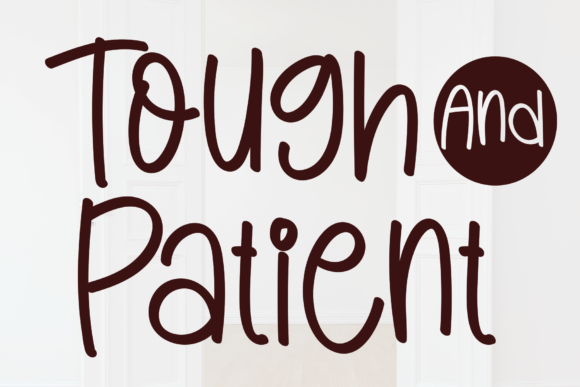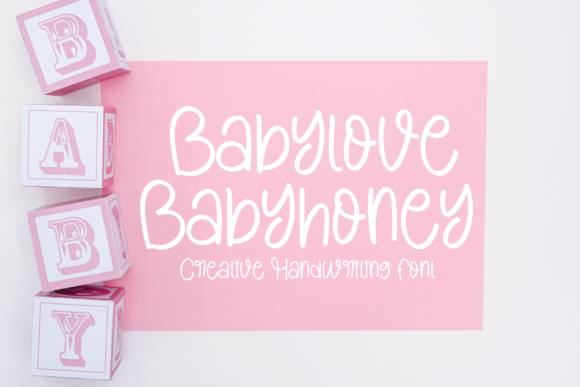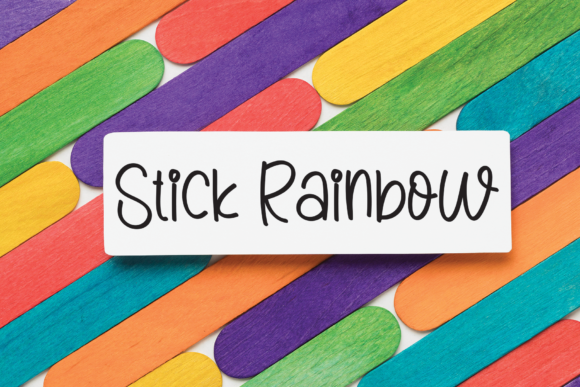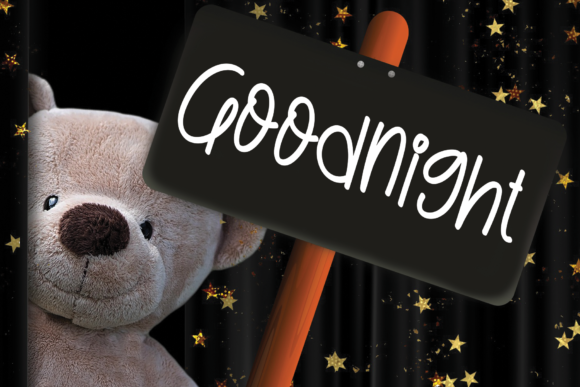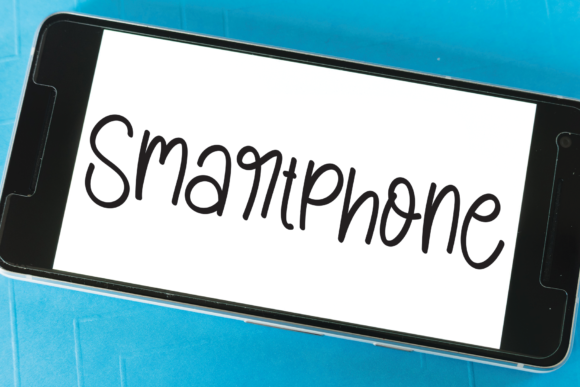
Tough and Patient Font
About Tough and Patient Font
Tough and Patient is a cute, quirky and whimsical handwritten font. No matter the topic, this font will be an incredible asset to your fonts’ library, as it has the potential to elevate any creation.